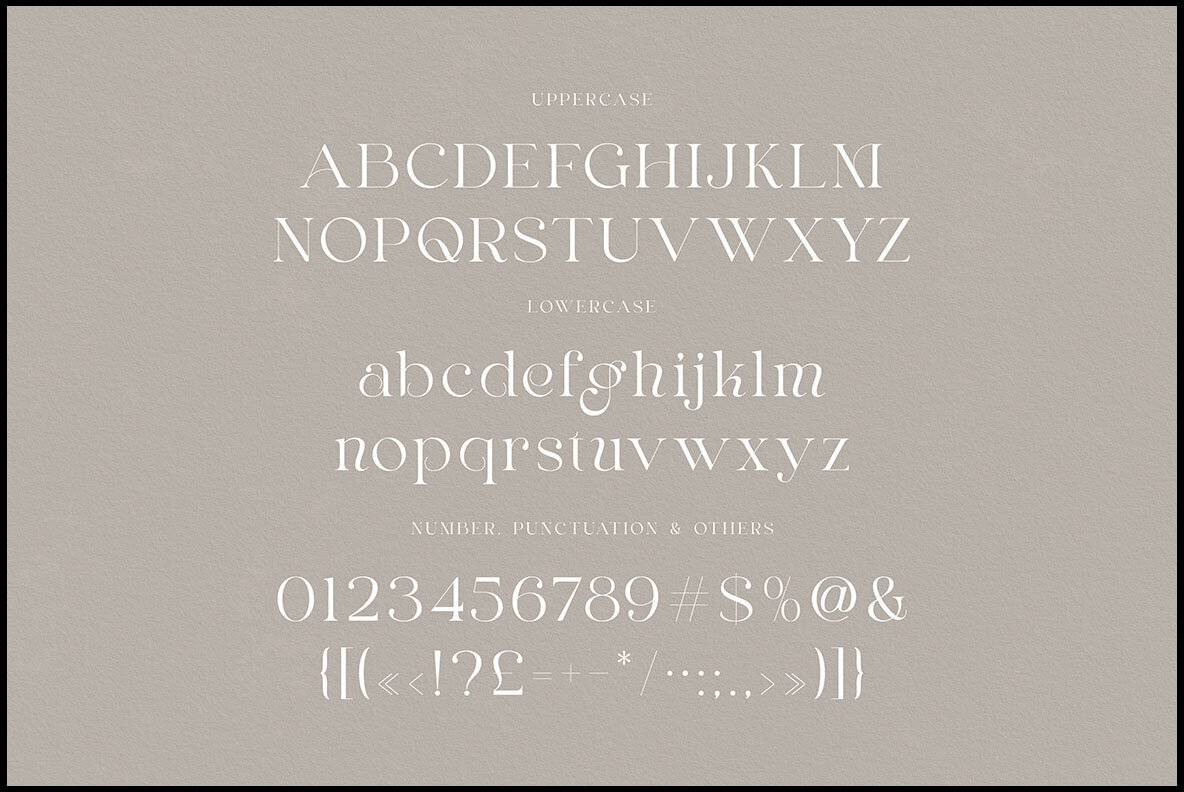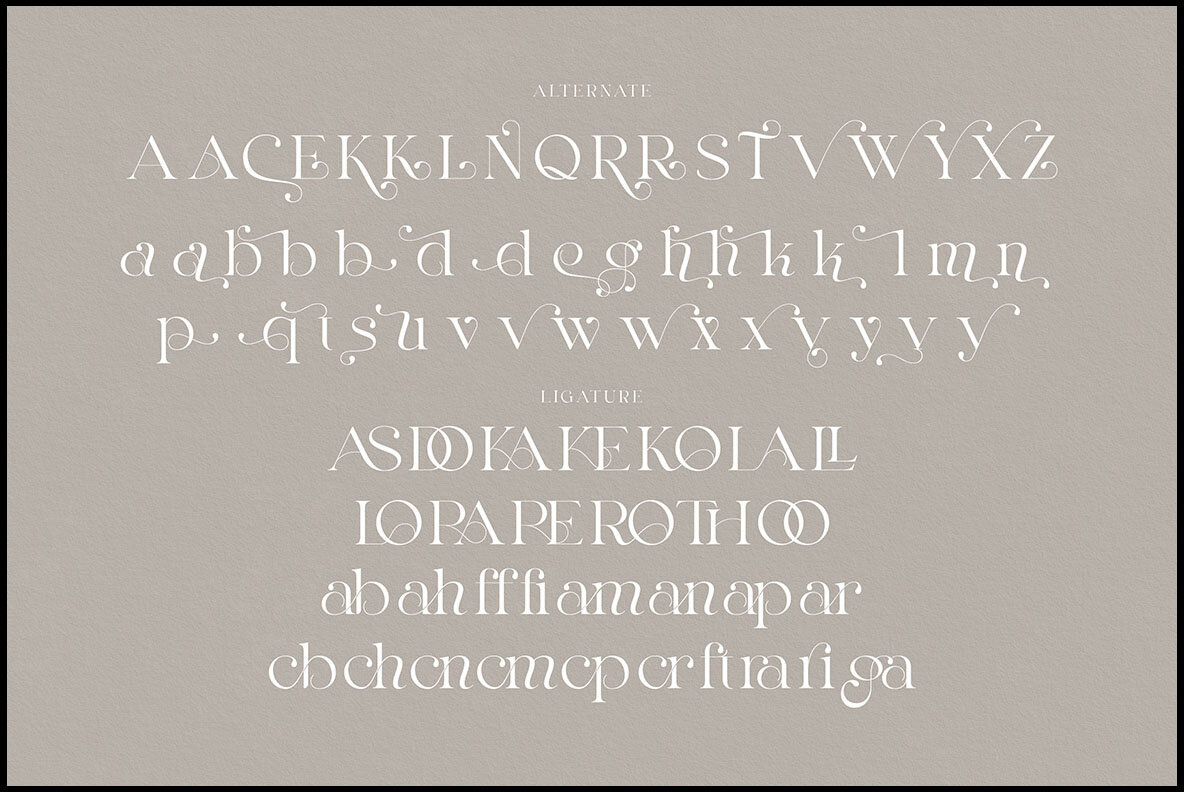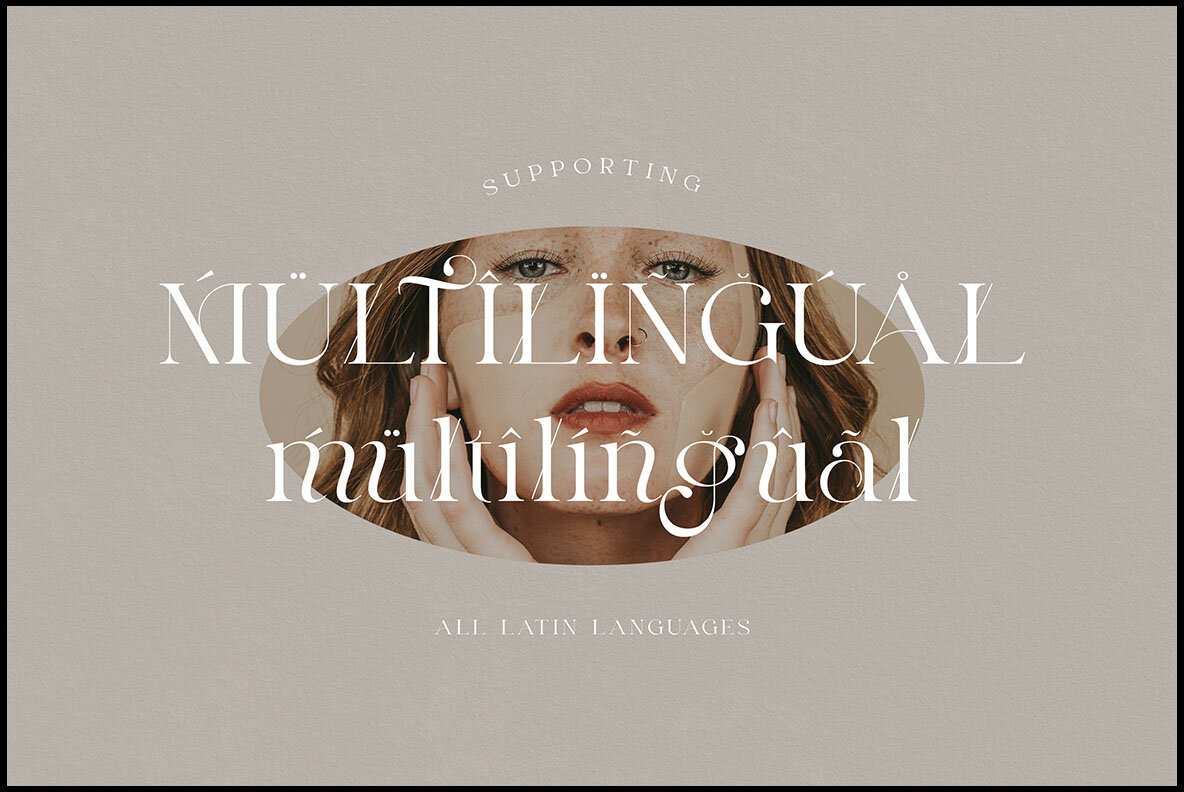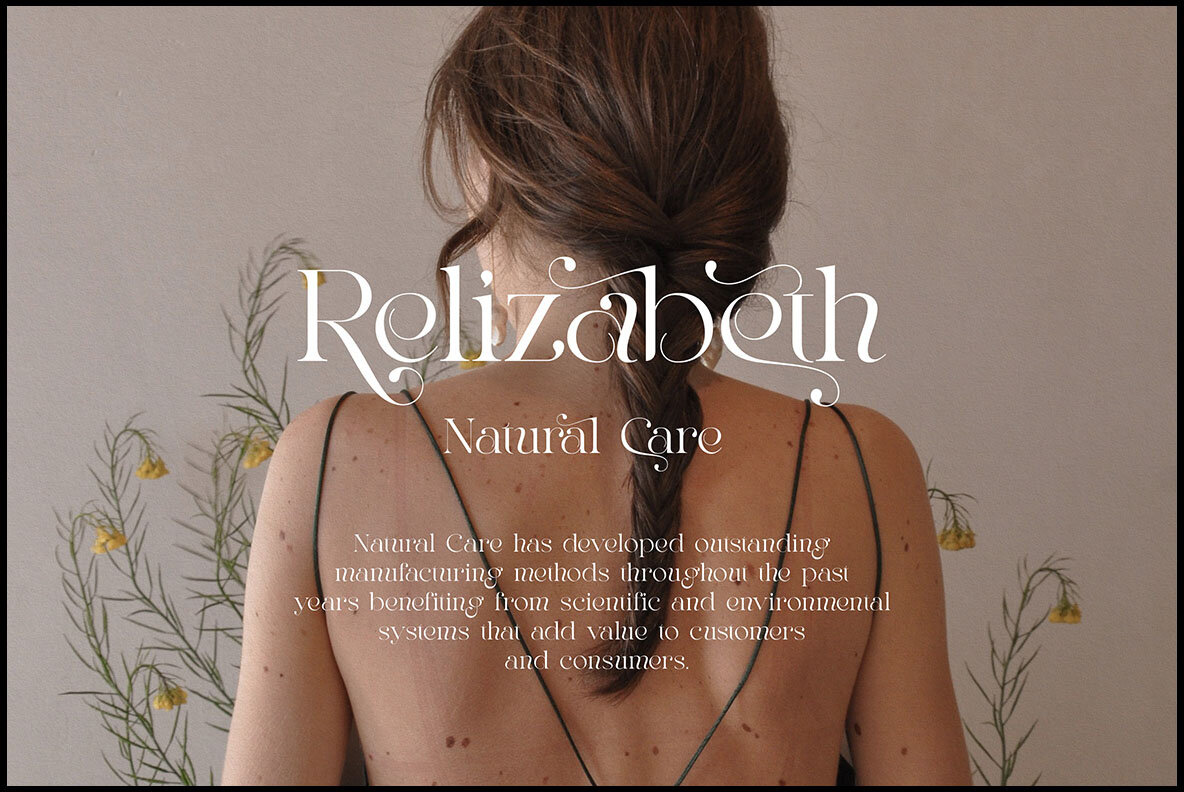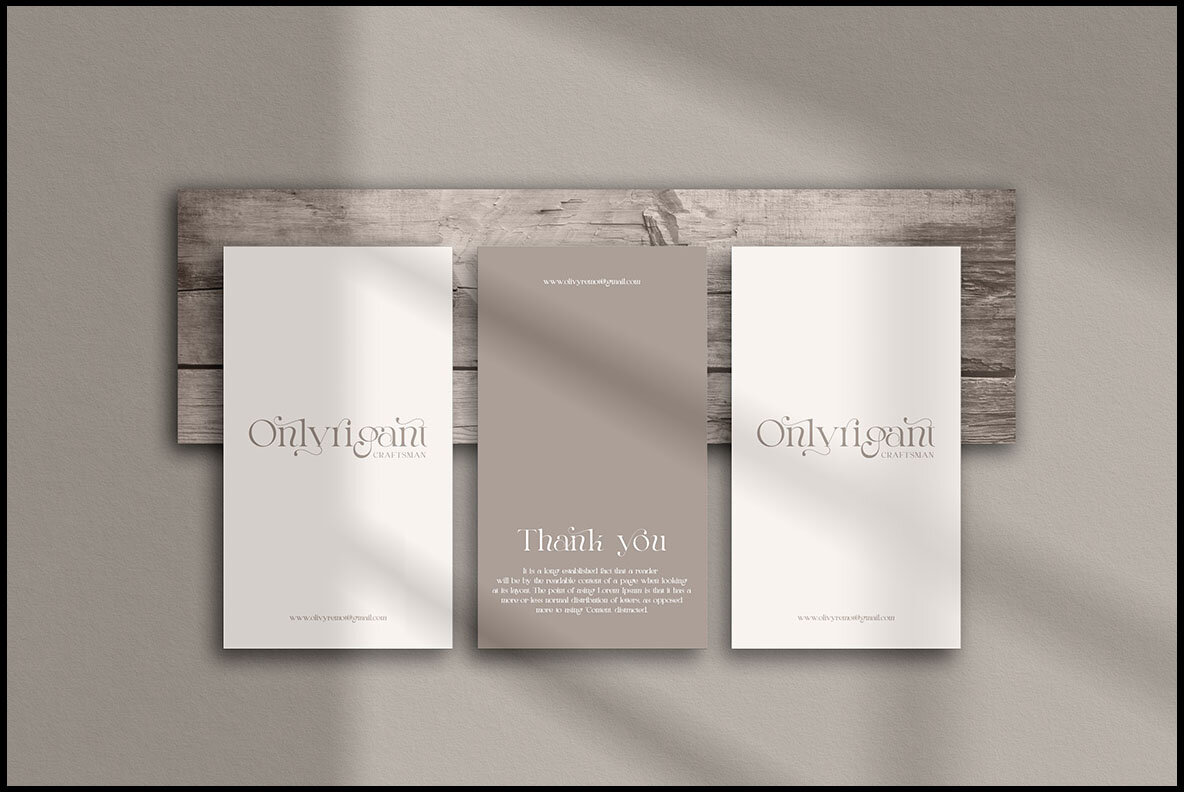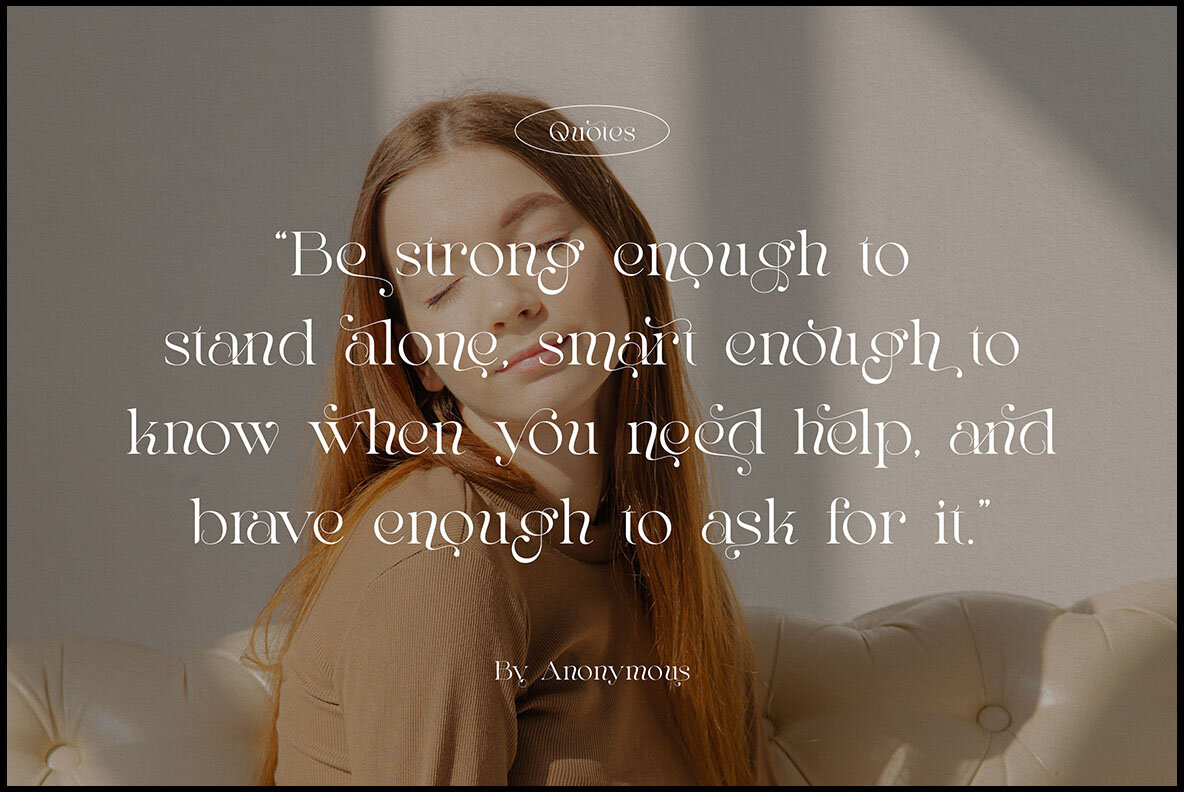
Margaret Font
Margaret
Margaret by Peter Olexa is a trendy serif font that combines elegance with a modern and retro style, making it suitable for varied projects. Its luxurious and artistic appearance is perfect for branding endeavors. Enhance your designs with its wealth of alternates and ligatures, allowing you to craft unique logos and captivating website headers.Margaret: Trendy Serif for Contemporary Branding